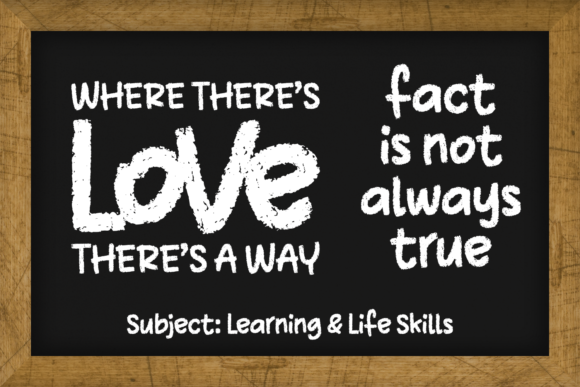
Freebie Wednesday: School Chalk Free Font
School Chalk is a cute, fun and friendly display font. Whether you’re using it for crafting, digital designing, presentations or greeting cards making, it’s perfect! Available for free on the Creative Fabrica site, don’t miss it!